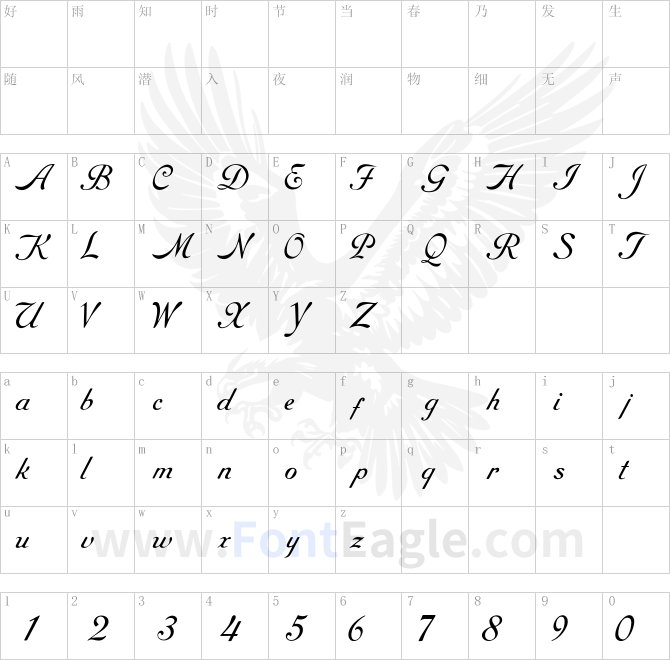
- Font name:RoundHand Free
RoundHand-Free is a great font, widely used in graphic design, single-page menu design, poster design and other fields, and is deeply loved by designers.RoundHand-Free download.